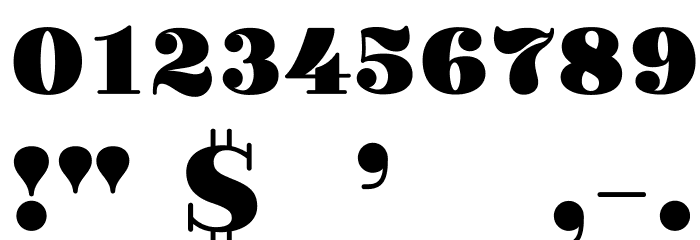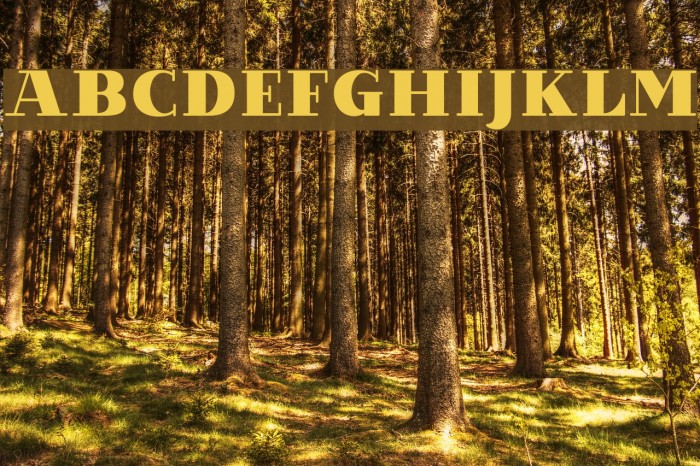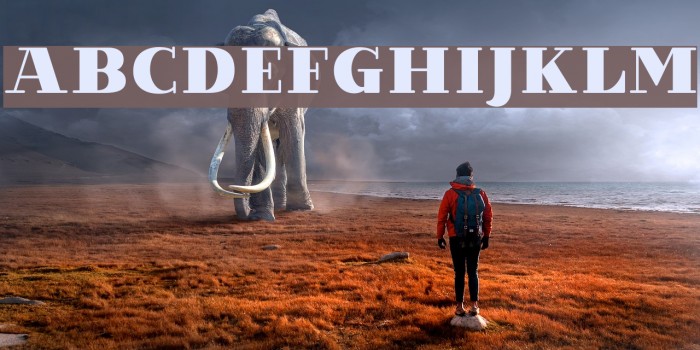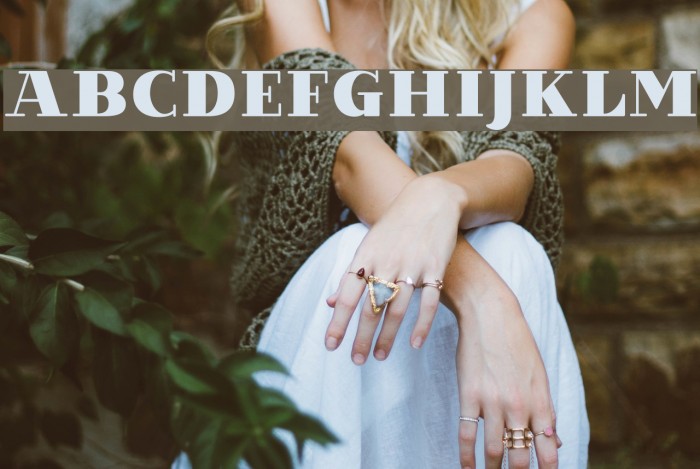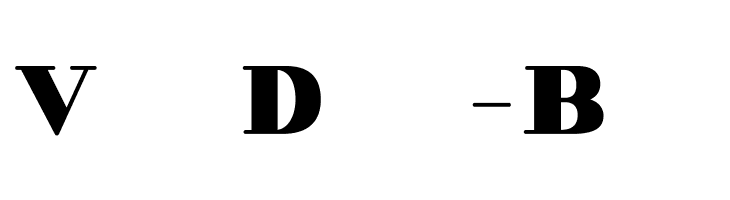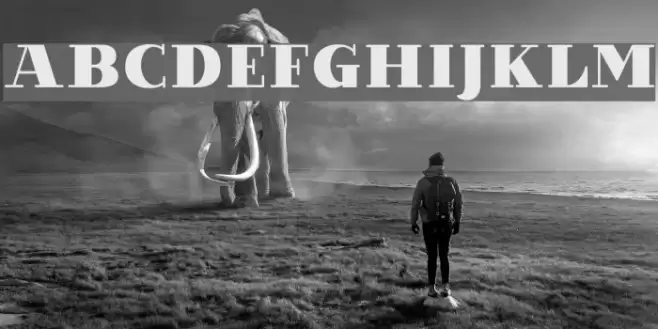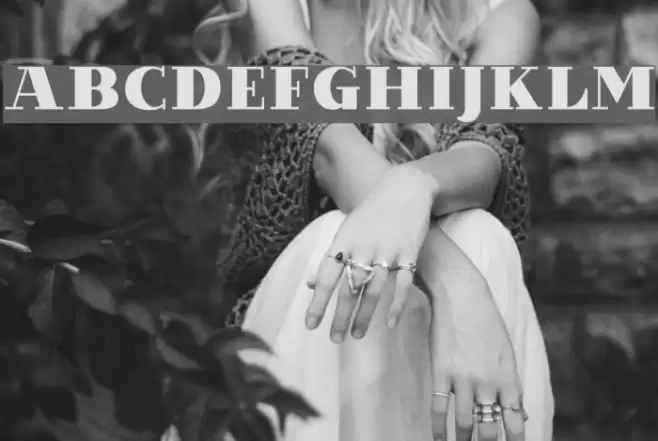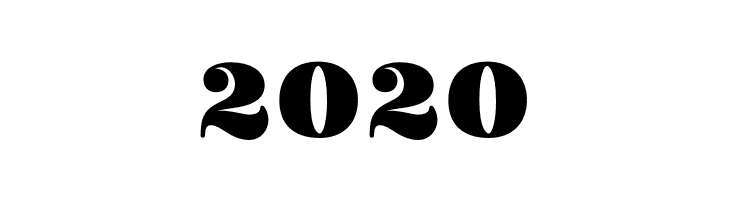
VillaDidot-Black Font
This font is characterized by its bold and dramatic appearance, featuring high contrast between thick and thin strokes. The serifs are sharp and pronounced, giving it a classic and elegant feel. The uppercase letters are particularly striking, with a strong vertical emphasis and refined curves. The numerals and special characters maintain the same boldness and clarity, ensuring readability. This font's style is reminiscent of traditional Didot typefaces, known for their sophistication and timeless appeal.
A bold, high-contrast serif font with elegant and classic features.
- Proposed Projects: Ideal for luxury branding, editorial design, fashion magazines, and high-end product packaging.